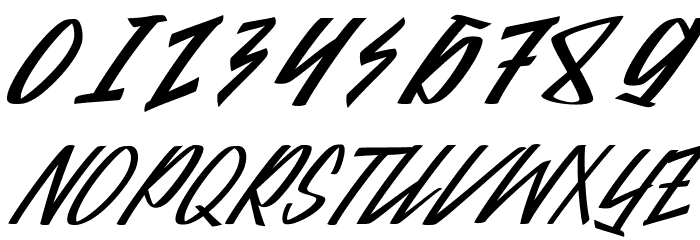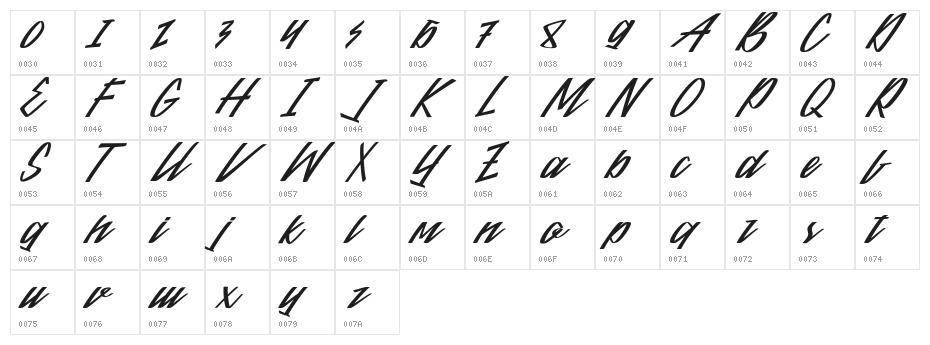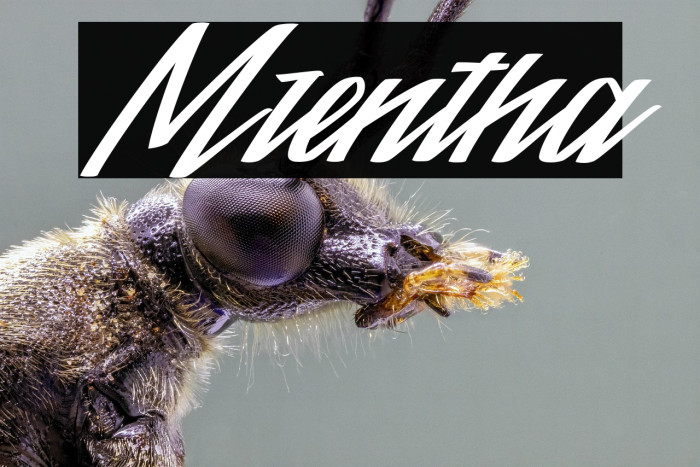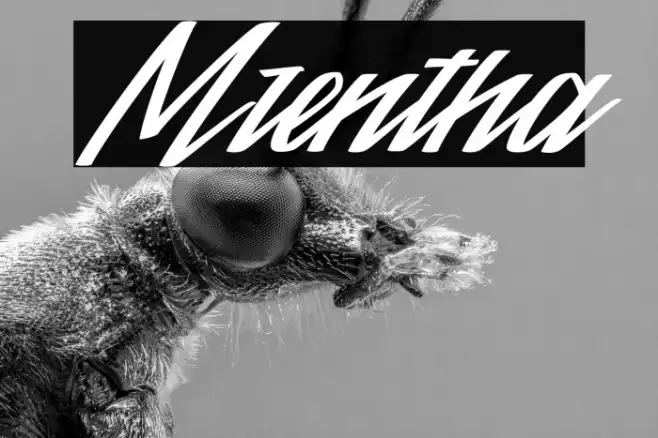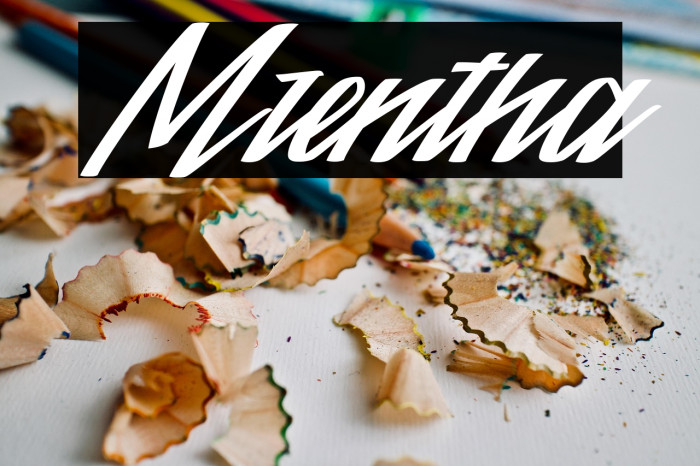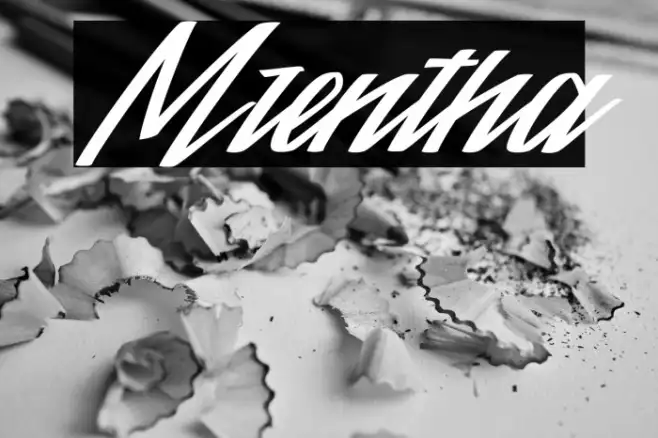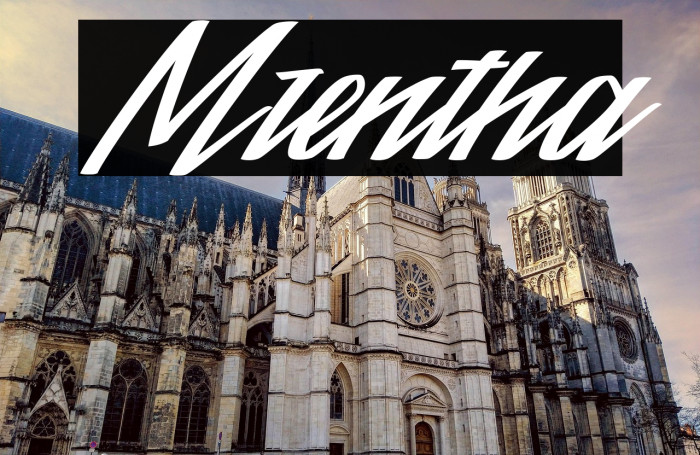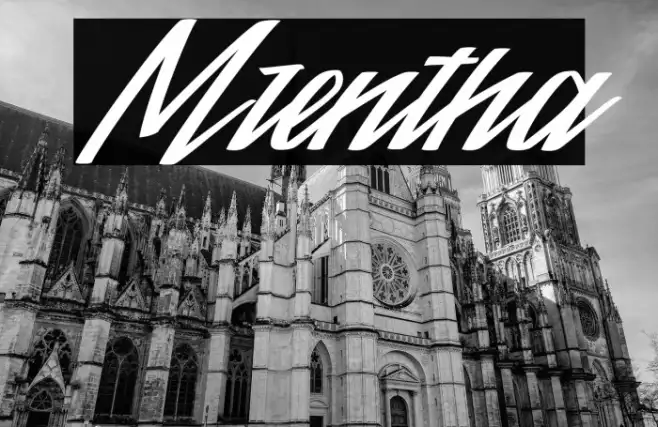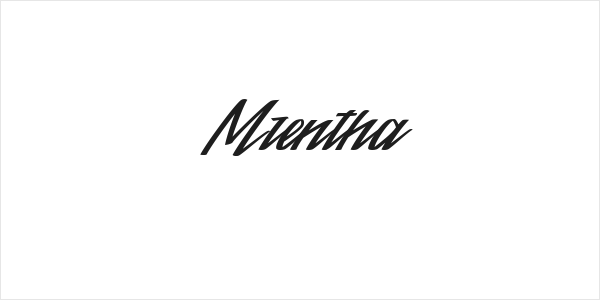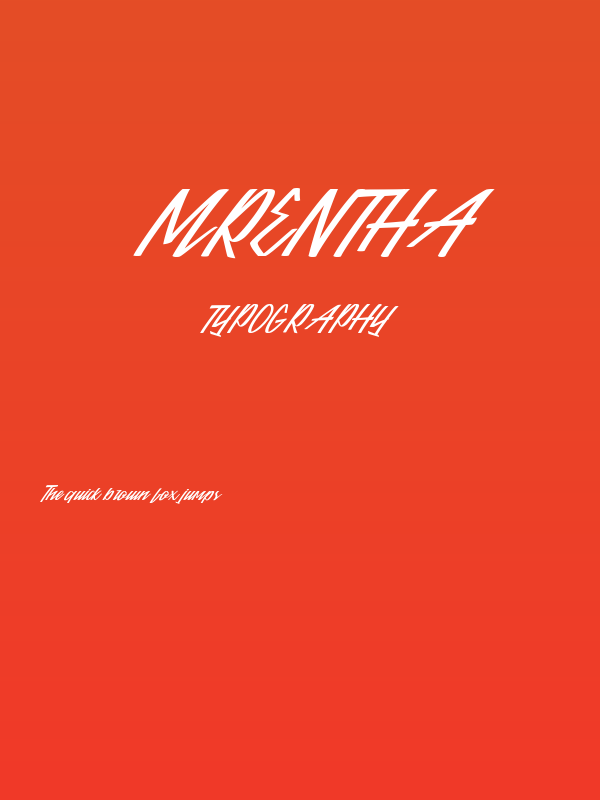
Mrentha Font
Mrentha Description
This font features a bold, dynamic script style with a strong slant to the right, giving it a sense of motion and energy. The strokes are thick and consistent, providing a high contrast that enhances readability despite the cursive nature. Each character is well-defined with sharp edges and smooth curves, creating a harmonious flow across the text. The uppercase letters are slightly larger than the lowercase, maintaining a balanced proportion. The numbers and special characters follow the same stylistic cues, ensuring uniformity throughout. This font exudes a modern, edgy vibe, making it suitable for eye-catching designs.